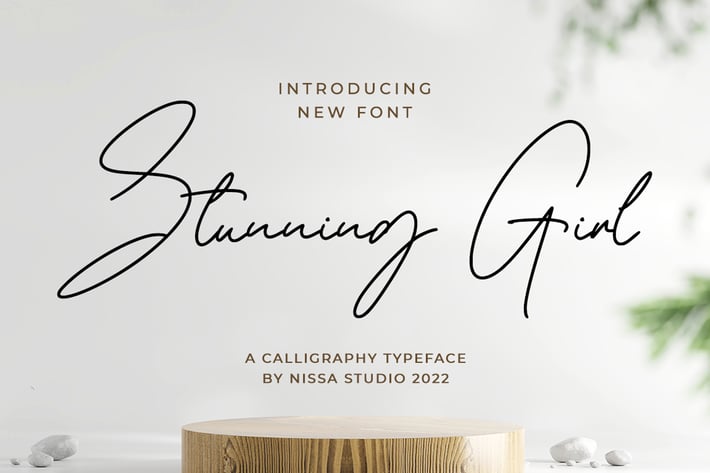
Stunning Girl - Signature Font
Stunning Girl is a beautiful and delicate handwritten font with a unique feel and a stunning impact. It will add a luxury spark to any design project that you wish to create!
Modern Handwritten Font
Beautiful Swash (Ending tail)
Beautiful Titling (Beginning tail)
Special Ligatures